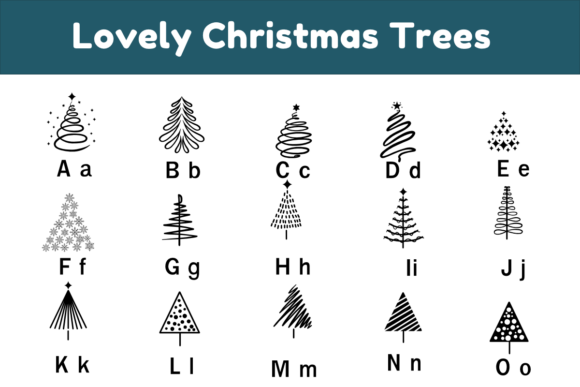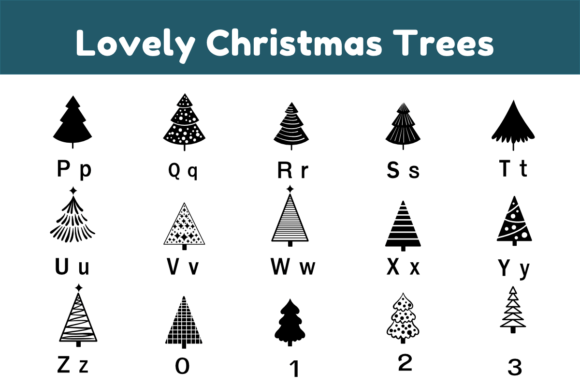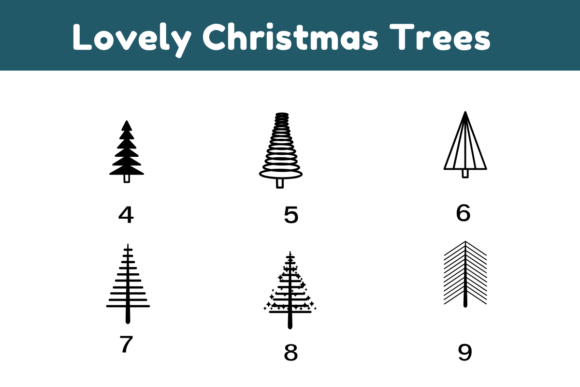
Introduction to Lovely Christmas Trees Font
As the holiday season approaches, designers are on the lookout for the perfect design resource to infuse their projects with festive spirit. It’s that moment when you’re brainstorming ideas for a client’s Christmas campaign, and you stumble upon a font that makes your heart skip a beat. For many, that moment comes with the discovery of the Lovely Christmas Trees Font.
This delightful dingbat font is more than just a pretty face; it’s a treasure trove of beautifully stylized tree illustrations that capture the essence of Christmas. With its vector-based design, the Lovely Christmas Trees Font scales flawlessly, maintaining crisp lines and intricate details no matter the size.
Whether you’re working on a creative project for a client or designing something special for your loved ones, the Lovely Christmas Trees Font is a valuable asset that’s sure to bring a touch of holiday cheer to your designs.
Key Features of Lovely Christmas Trees Font
- High-quality design resource ideal for creative projects, including Christmas cards, gift tags, and holiday decorations.
- Features a transparent background, allowing for easy integration with various design elements and backgrounds.
- Designed with a clear, elegant, and festive aesthetic, making it perfect for adding a touch of holiday cheer to any design project.
Honest Review: Lovely Christmas Trees Font
I recently stumbled upon the Lovely Christmas Trees Font while searching for design resources to add some festive flair to my creative project. As a designer, I appreciate the effort put into creating a unique and high-quality font that’s perfect for the holiday season.
Here are some aspects of the Lovely Christmas Trees Font that I think work well: ✨
- Unique and creative design that stands out from the usual fonts
- High-quality resolution, perfect for print or digital use
- Transparent background, making it easy to layer with other design elements
- The font is limited to a single style, which may not be ideal for more complex designs
- The font may not be suitable for extended use in large body text
How to Use Lovely Christmas Trees Font
The Lovely Christmas Trees Font is a high-quality design resource that can add a festive touch to your creative projects. With its transparent background, this font is perfect for overlaying onto images or backgrounds.
You can use the Lovely Christmas Trees Font in a variety of design applications, including:
– Add the font to your presentations or documents to give them a festive touch.
To get the most out of the Lovely Christmas Trees Font, use it in conjunction with other design elements, such as images or graphics. Common use cases include:
- Creating festive holiday cards and invitations
- Designing social media graphics for holiday promotions
- Adding a festive touch to presentations and documents